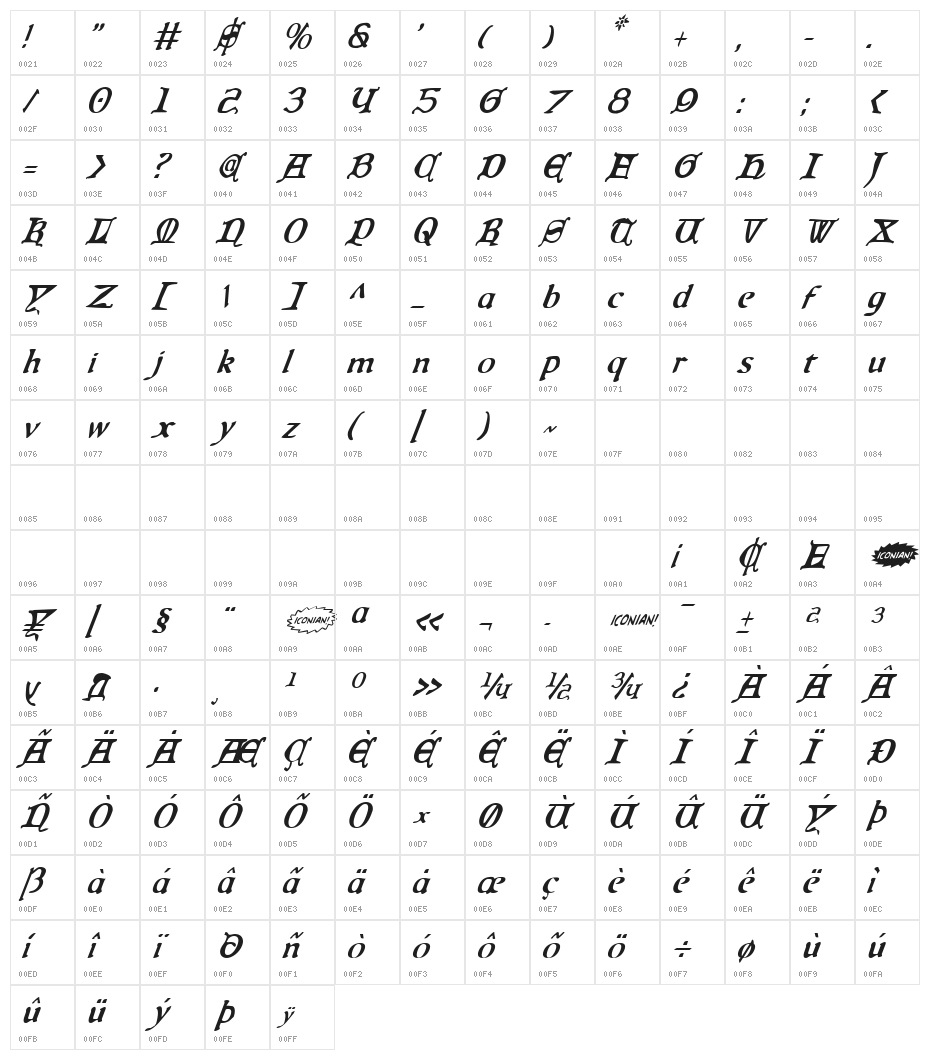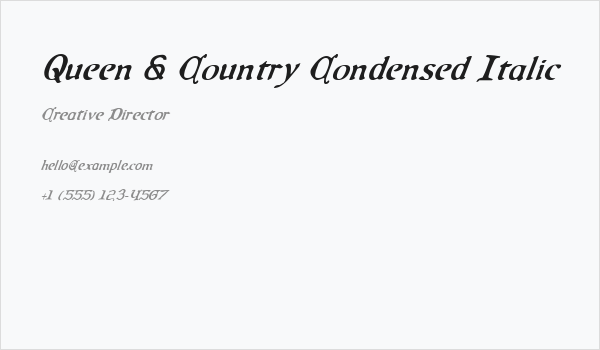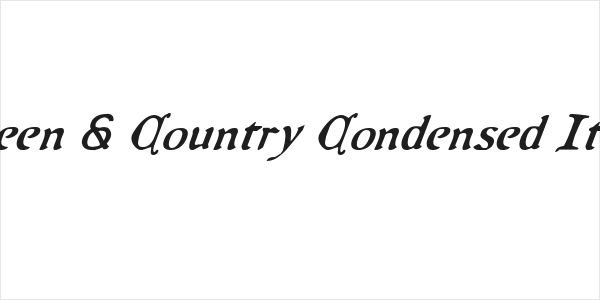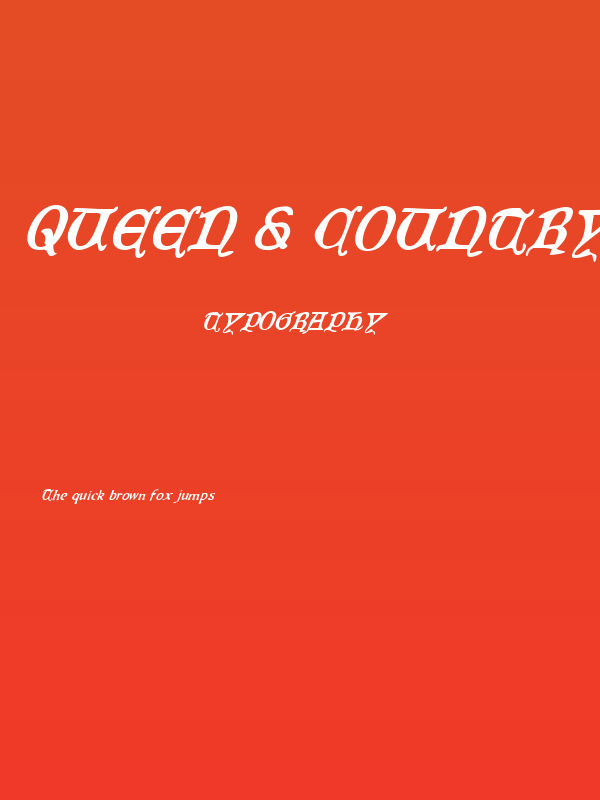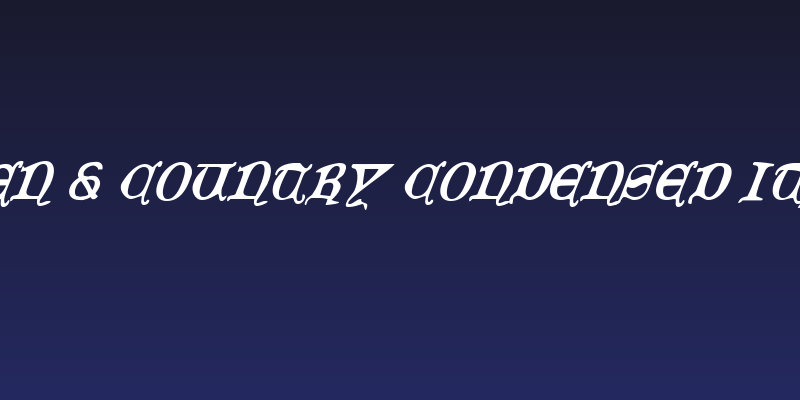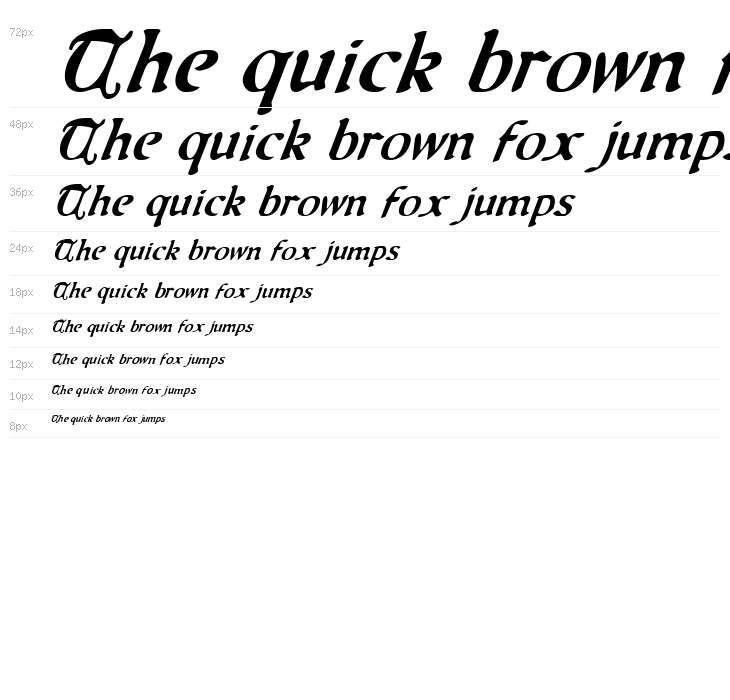
Queen & Country Condensed Italic Font
Queen & Country Condensed Italic Description
This font features a dynamic and expressive style with a condensed italic form. The characters exhibit a flowing, cursive-like quality, with sharp angles and pronounced serifs that add a sense of elegance and sophistication. The uppercase letters are bold and commanding, while the lowercase letters maintain a consistent rhythm and fluidity. Numbers are equally stylized, ensuring a cohesive look across all elements. The special characters are designed with the same attention to detail, making them suitable for decorative purposes. This font's unique style makes it ideal for projects that require a touch of flair and distinction.